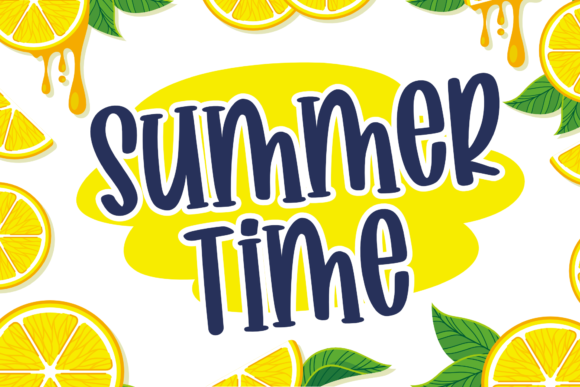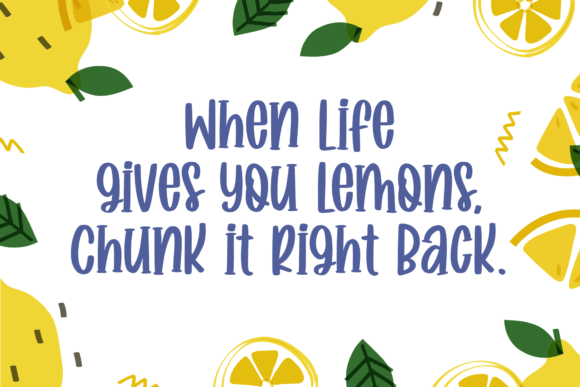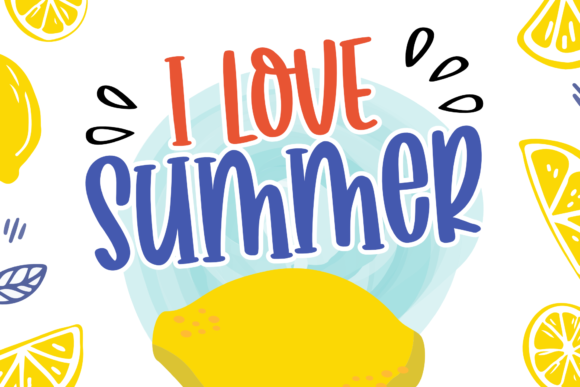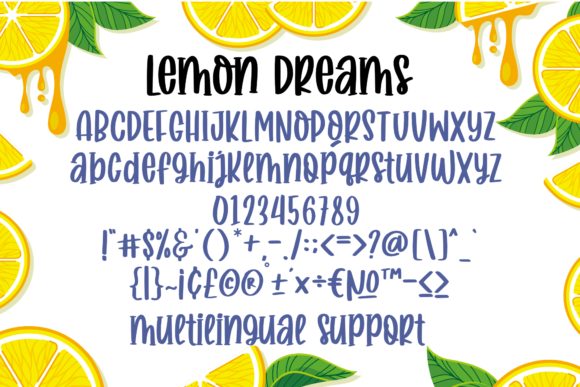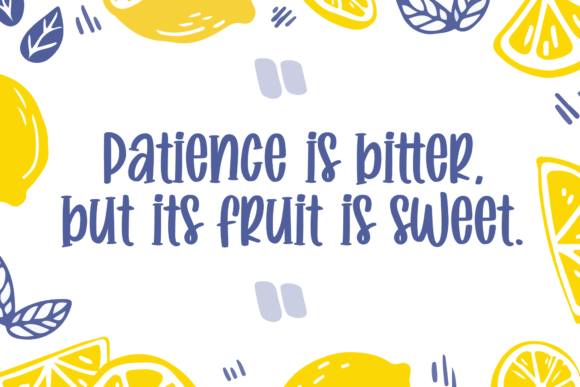
Introduction to Lemon Dreams Font
As a designer, have you ever found yourself stuck in a creative rut, searching for that perfect touch to elevate your project? I know I have. One day, while browsing through a collection of fonts, I stumbled upon the whimsical Lemon Dreams Font – and my design world was instantly brightened. This charming handwritten font is a game-changer for any high-quality design resource, offering a unique and bouncy feel that’s perfect for a wide range of creative projects.
Whether you’re crafting invitations, creating social media graphics, or designing a website, the Lemon Dreams Font is an invaluable addition to your toolkit. With its transparent background and free download option, you can easily incorporate it into your designs without any hassle. In this article, we’ll dive deeper into the world of Lemon Dreams Font and explore its many uses and benefits for designers like you.
Key Features of Lemon Dreams Font
- Unique, hand-drawn style with a transparent background for seamless integration
- Includes a wide range of characters, including uppercase and lowercase letters, numbers, and punctuation marks
- Perfect for use in various creative projects, such as logo design, branding, and typography-based art
Honest Review: Lemon Dreams Font
I recently stumbled upon the Lemon Dreams Font, and I must say it’s a lovely addition to any designer’s arsenal. This high-quality design resource is perfect for those looking to add a touch of whimsy to their creative project.
The font features a beautiful, dreamy quality that’s reminiscent of citrusy sunsets and carefree afternoons. With a transparent background, you can easily layer it over any image or color scheme without worrying about unwanted textures.
- ✨ The font’s high level of detail, making it perfect for titles and headings.
- ✨ The variety of styles and weights, allowing for endless customization options.
- ⚠️ The font may not be suitable for body text, as it can be a bit too ornate.
- ⚠️ Some users may find the font’s style a bit too cliche.
Overall, I’m impressed with the Lemon Dreams Font’s versatility and charm. While it may not be perfect for every project, it’s certainly a valuable addition to any designer’s toolkit. I’d recommend giving it a try and seeing how it can elevate your creative project.
The Lemon Dreams Font is ideal for designing invitations, menus, and other materials that require a creative and elegant touch. It’s also great for use in branding and marketing materials, such as business cards and brochures.